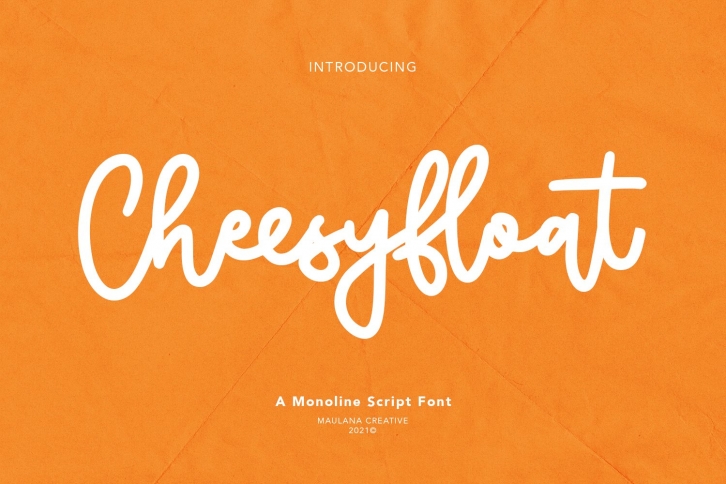
Cheesyfloat Monoline Script is a beautiful font that was designed by Maulana Creative. It's a great choice for designers and creatives who need such a font. It was released on June 17, 2021 and the file size is 21.45 MB. Cheesyfloat Monoline Script may give a more youthful, expressive and casual look to your project. It is a very beautiful, refined, elegant, and high-quality font.